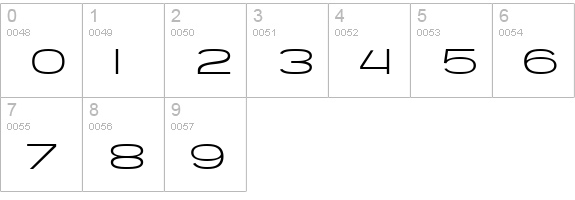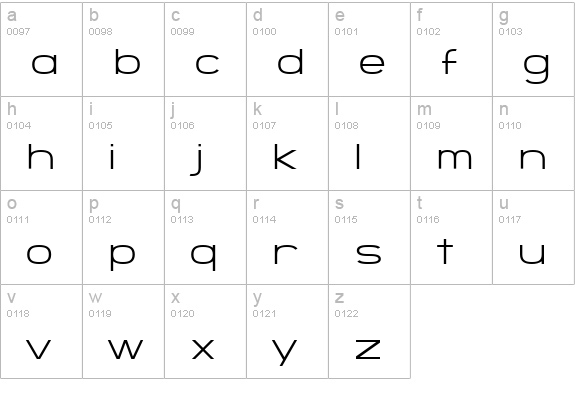
SF Grandezza Light Font Details
SF Grandezza Light is a refined, elegant variant in the SF typeface family \xE2\x80\x94 well suited to elegant body text, refined sub-headings, and luxury branding.
SF Grandezza Light is a visually stunning font that exudes elegance and sophistication. With its sleek and slender letterforms, this typeface captures a sense of modernity combined with a timeless appeal. The delicate strokes and graceful curves make SF Grandezza Light a perfect choice for projects that require a touch of finesse. This font is not only visually pleasing but also incredibly versatile. Whether used for headlines, body text, or design elements, SF Grandezza Light effortlessly adds a touch of sophistication to any project. Its clean and legible design ensures that your message is conveyed with clarity and authority. One of the best aspects of SF Grandezza Light is that it is freely available to download at FontsMarket.com. This means that designers, creatives, and enthusiasts alike can access this beautiful font without any cost. This accessibility allows for endless possibilities and encourages creativity to flourish. SF Grandezza Light is a font that combines style, functionality, and affordability. Its timeless beauty and versatility make it a must-have for any designer's toolkit. Whether you are working on a branding project, website design, or print materials, this font is sure to elevate your work to new heights. The availability of this font for free download at FontsMarket.com only adds to its appeal, making it a valuable asset for any project.